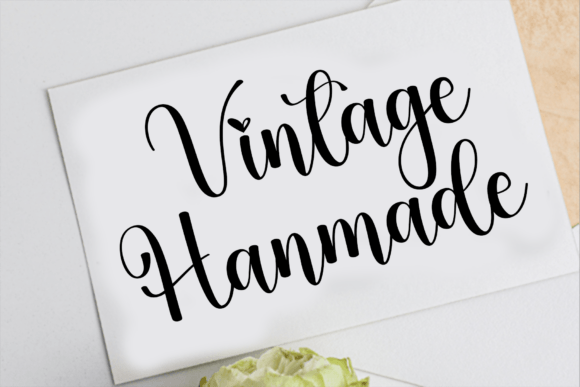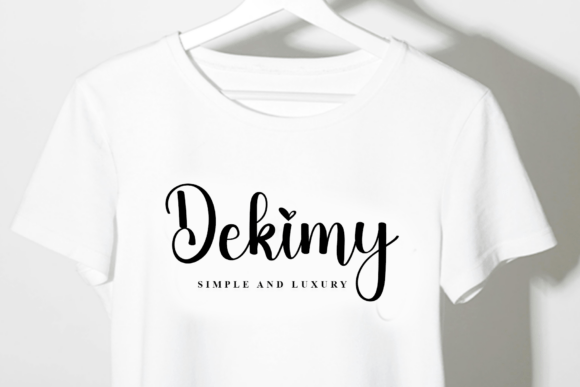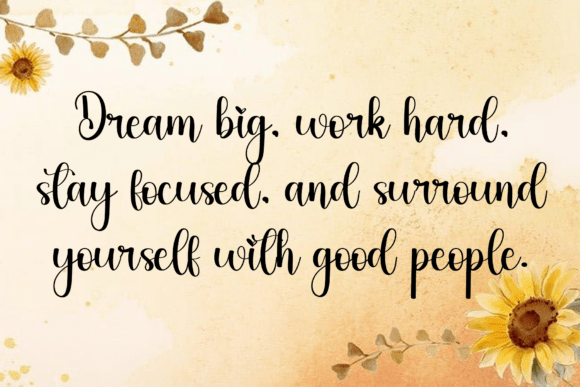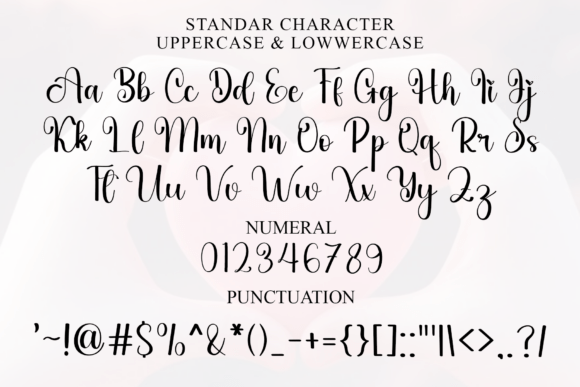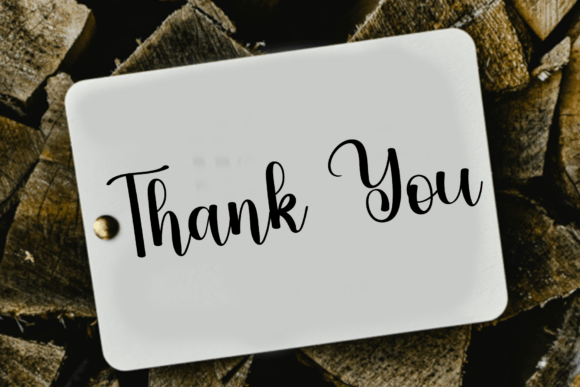
The Quest for the Perfect Font: Discovering Black Dragon
I’ll never forget the time I was working on a design project for a client who wanted a unique and eye-catching font to represent their brand. I spent hours scouring the internet for the perfect font, but nothing seemed to fit the bill. That was until I stumbled upon the Black Dragon font. Its distinctive strokes and soft, unique touch immediately caught my attention, and I knew I had found the one.
A First Impression: What I Love About Black Dragon
So, what makes Black Dragon so special? Here are a few things that I love about this beautiful font:
- ✨ Unique and eye-catching design: The distinctive strokes of Black Dragon give it a special character that sets it apart from other fonts.
- ✅ Versatile and meaningful: With various characters, Black Dragon is perfect for a wide range of design projects, crafts, and creative works.
While Black Dragon is an amazing font, there are a few quirks to consider:
- 🤔 Limited use in very small sizes: Due to its unique design, Black Dragon may not be the best choice for very small font sizes, as some details may get lost.
- ⚠️ No built-in bold or italic variations: Black Dragon is a single font style, so you may need to get creative if you want to add emphasis or variation to your text.
One of the best things about Black Dragon is its support for OpenType features and glyphs. Here are a few tips for getting the most out of these features:
- Experiment with stylistic alternates to add variation to your text.
The Story Behind Black Dragon
Black Dragon was designed by a team of creatives who wanted to create a unique and eye-catching font that would stand out in a crowded design landscape. Inspired by traditional dragon motifs and modern typography, Black Dragon is a true original.
| Is Black Dragon suitable for body text? | While Black Dragon is a beautiful font, it’s best suited for headings and titles. For body text, you may want to choose a font with better readability. |